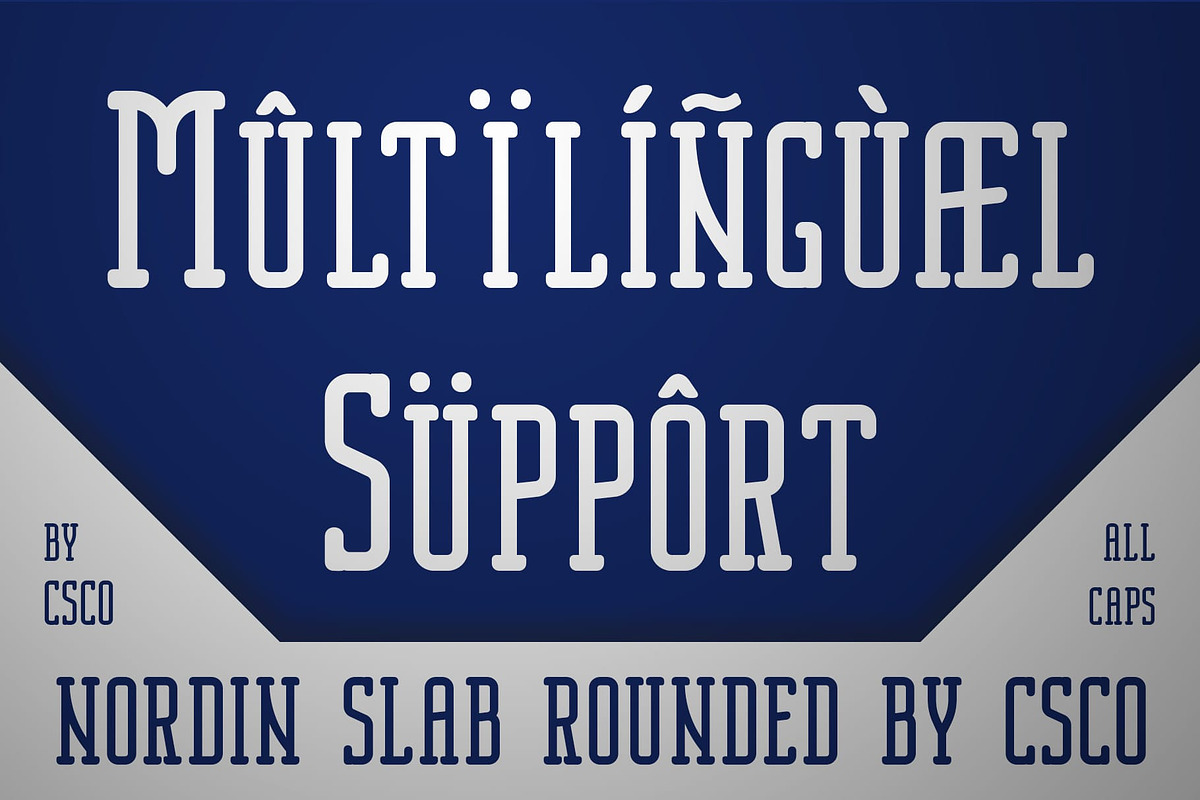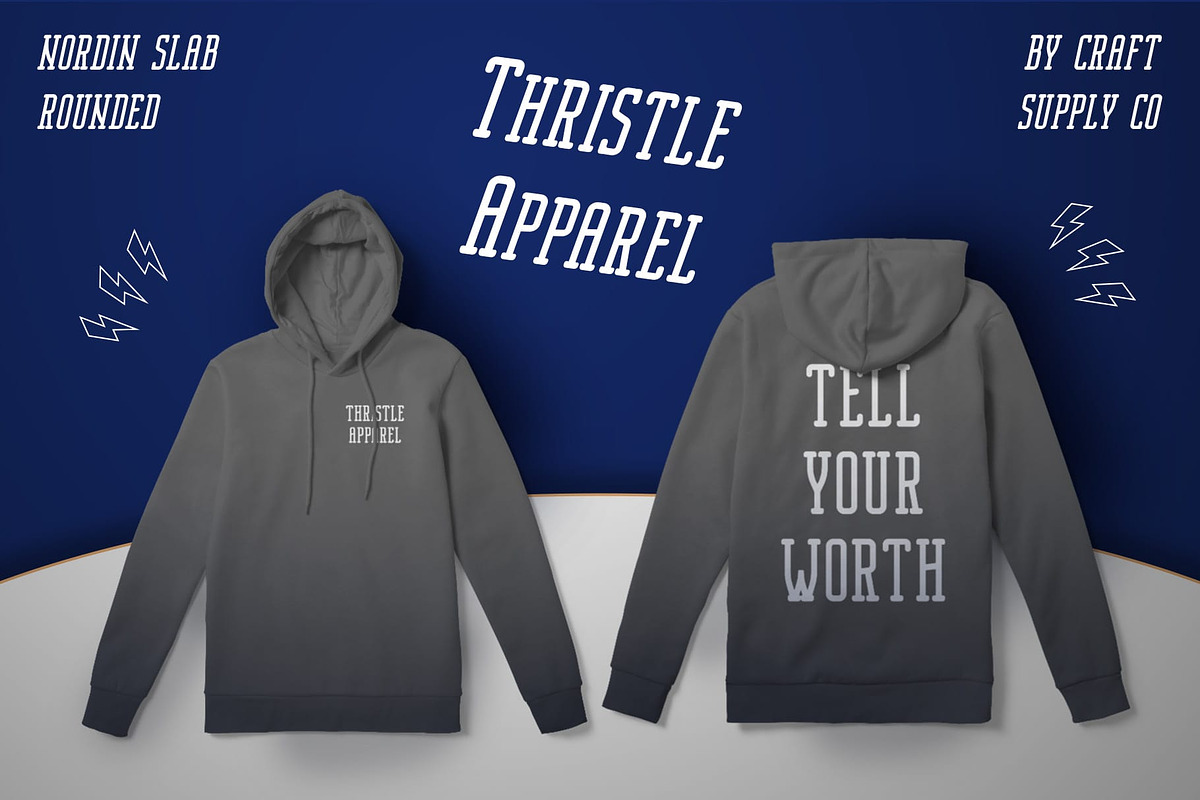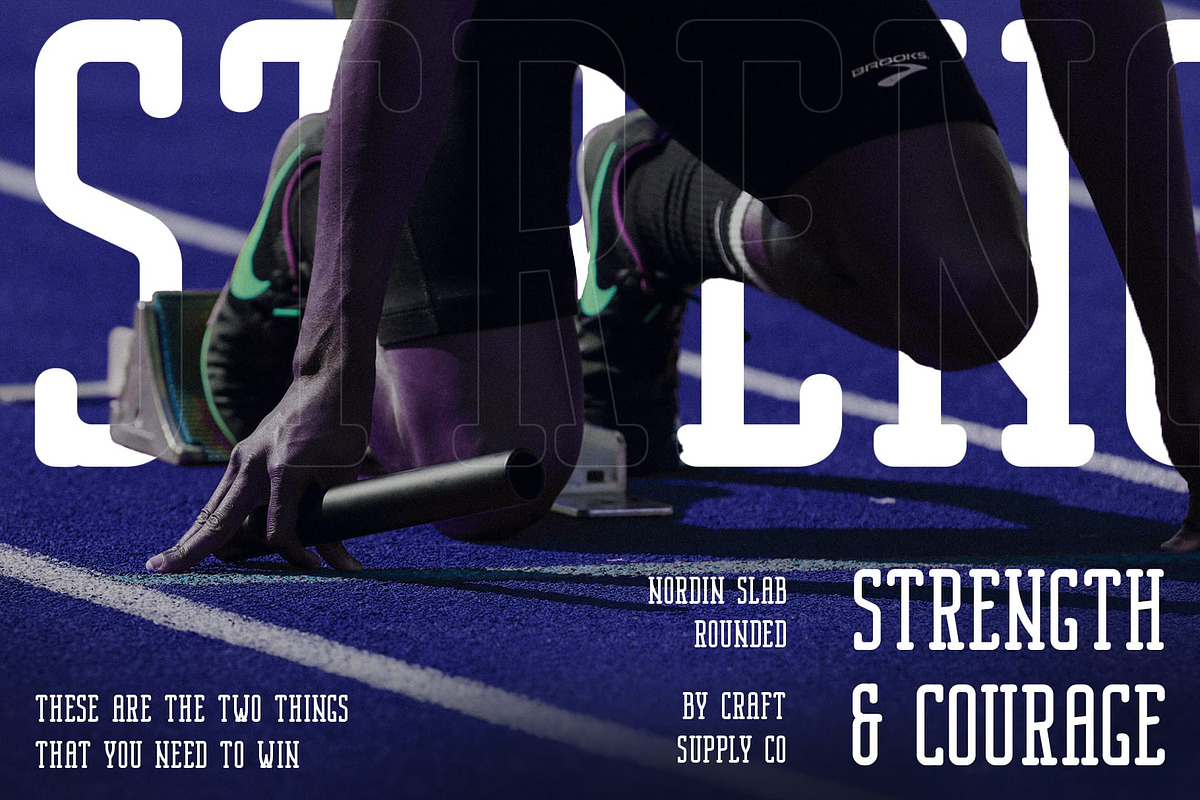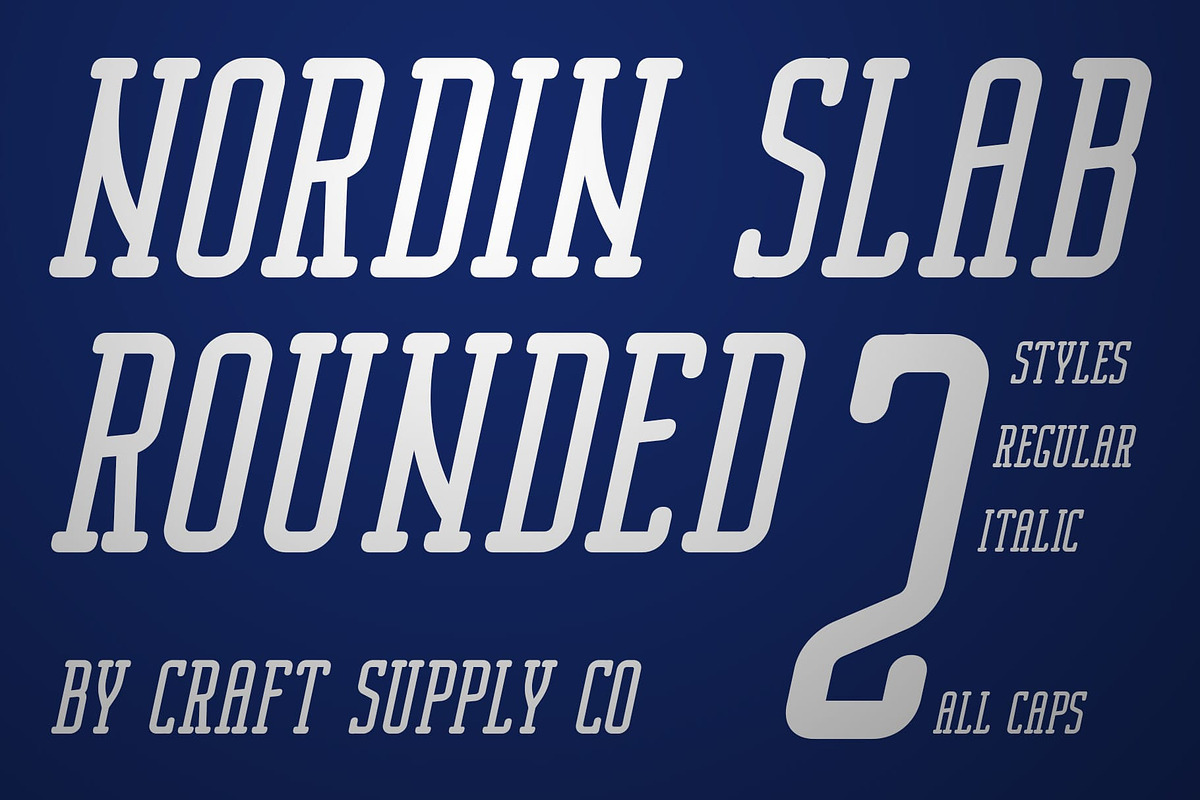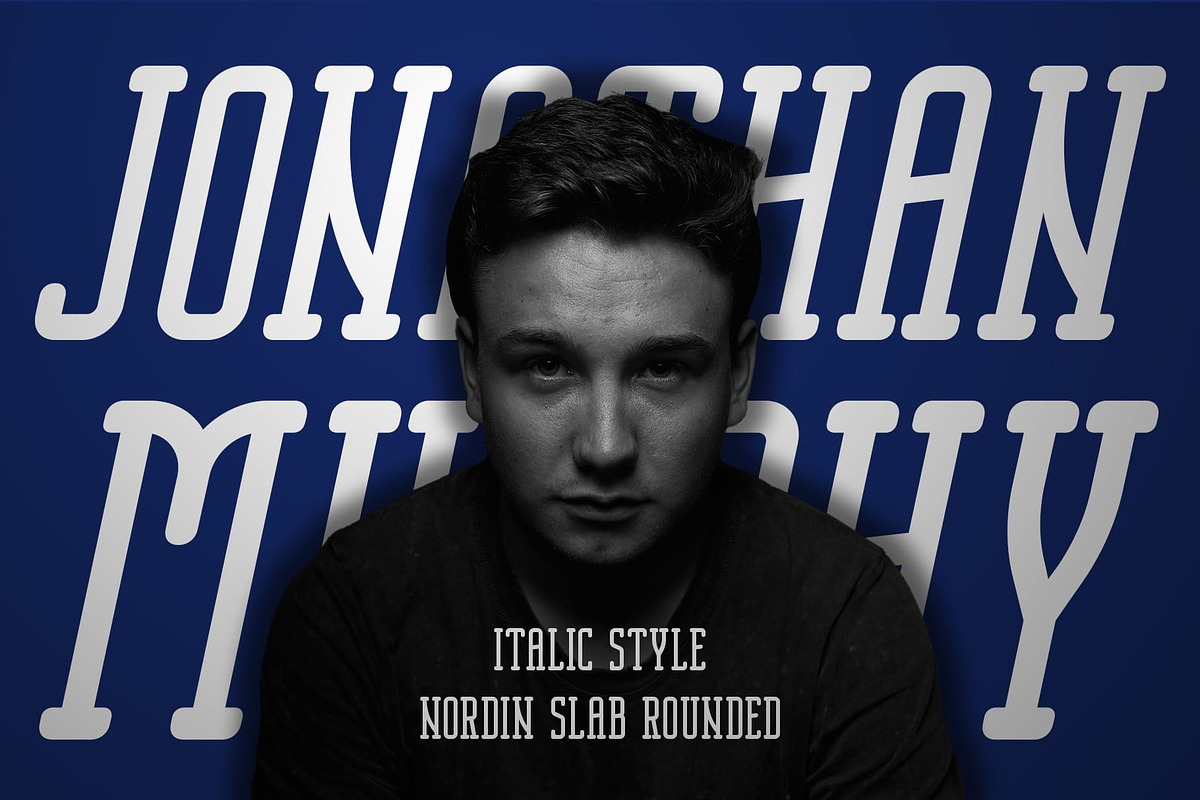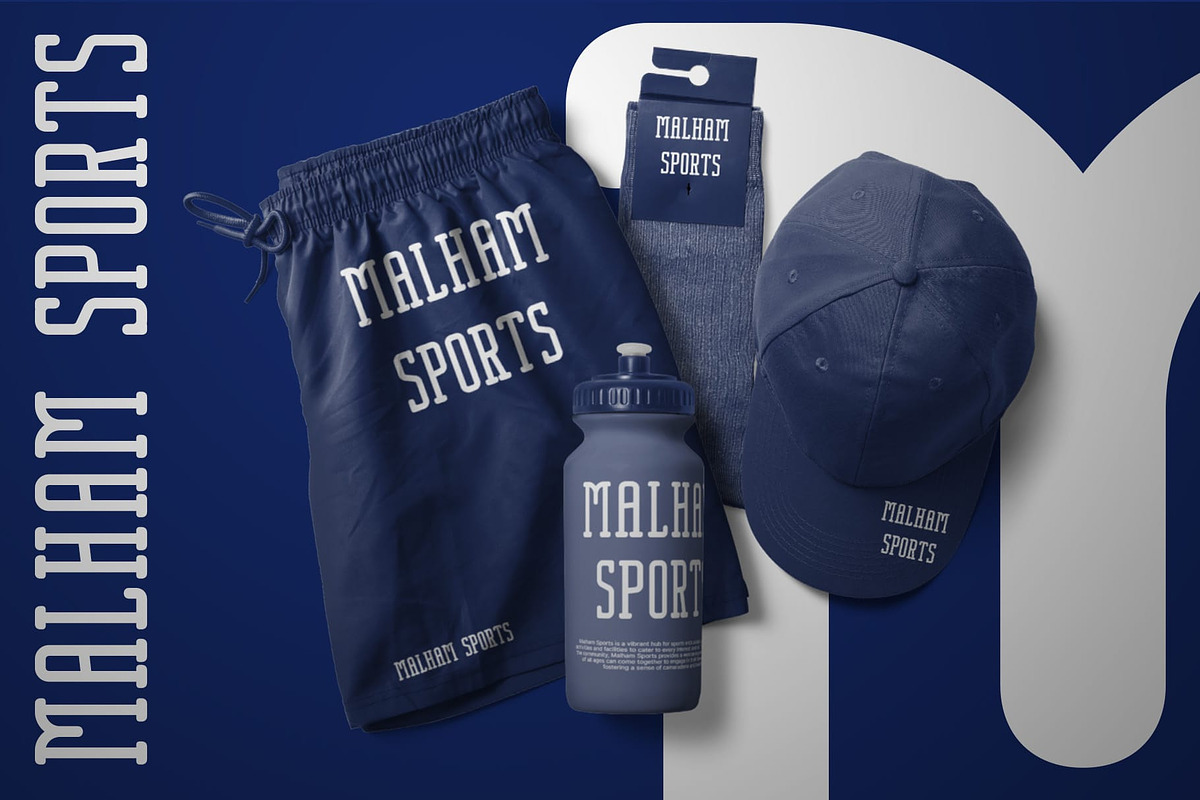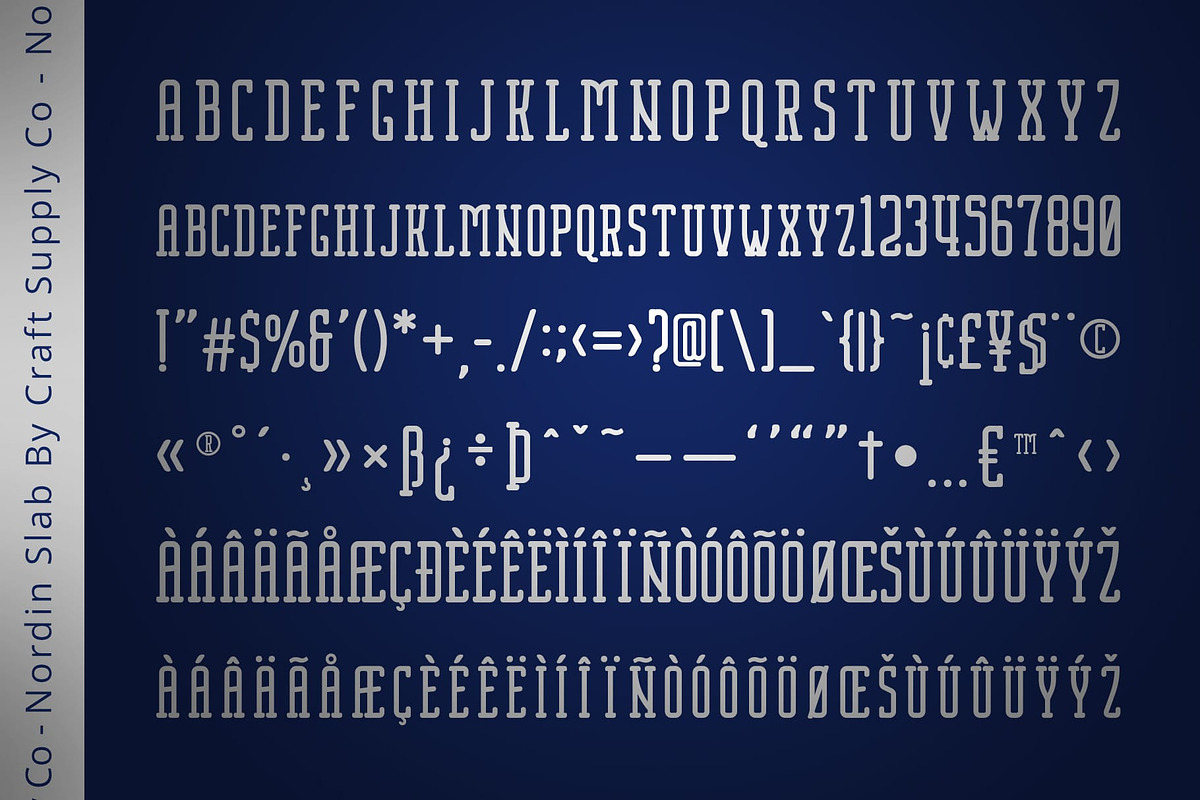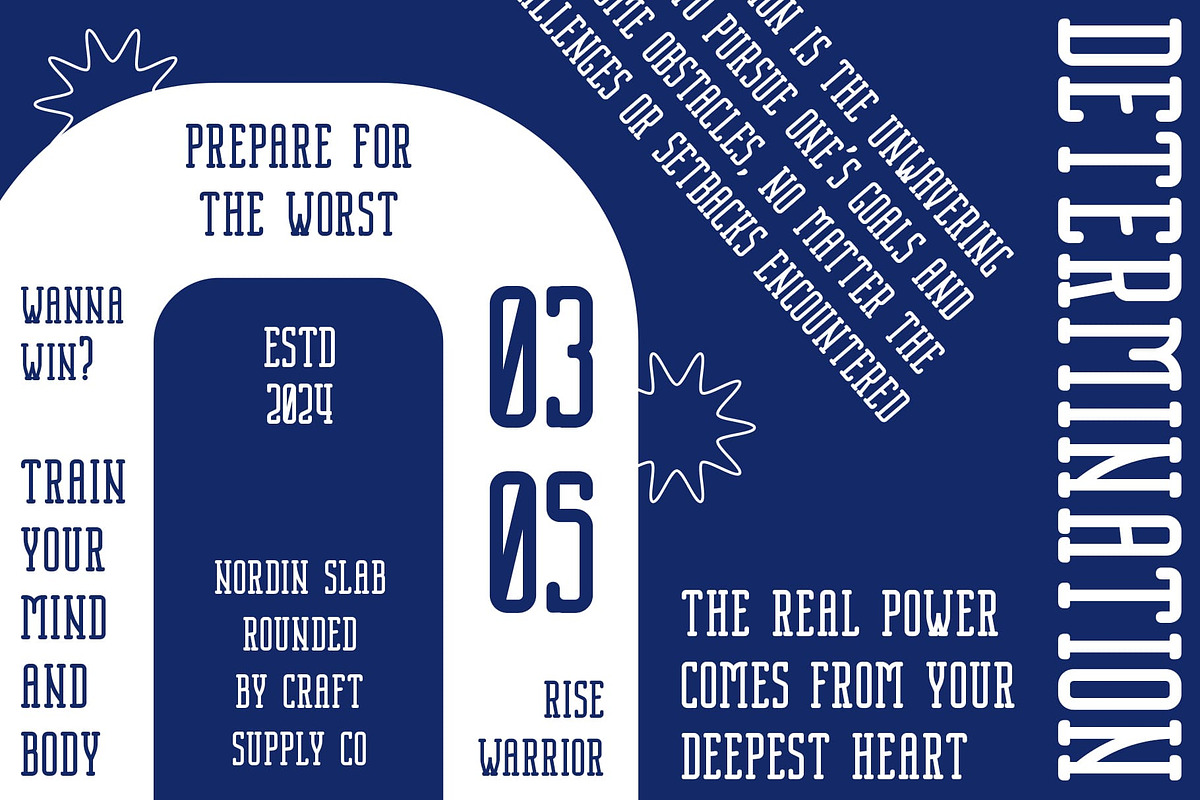
Nordin Slab Rounded
Nordin Slab Rounded: Sleek and Rounded Slab Serif
Condensed Design Nordin Slab Rounded features a condensed design that lends a sleek and modern aesthetic to any project. Its narrow width makes it ideal for optimizing space without sacrificing readability.
Rounded Stem Ends The font’s distinctive feature is its rounded stem ends, which soften its appearance and add a touch of friendliness. This unique element sets it apart from traditional slab serifs, infusing it with warmth and approachability.
Versatile Application With its condensed form and rounded stem ends, This font is versatile in its application. It works seamlessly in both digital and print mediums, making it suitable for a wide range of design projects, including headlines, branding, packaging, and more.
Bold and Impactful Despite its condensed design, This font exudes boldness and impact. Its sturdy letterforms command attention and ensure readability even at smaller sizes, making it perfect for catching the eye in both headlines and body text.
Modernity with a Soft Touch This font offers a contemporary take on the classic slab serif with its condensed form and rounded stem ends. Its versatility and bold yet approachable demeanor make it a valuable addition to any designer’s toolkit, capable of elevating various projects with its unique charm.